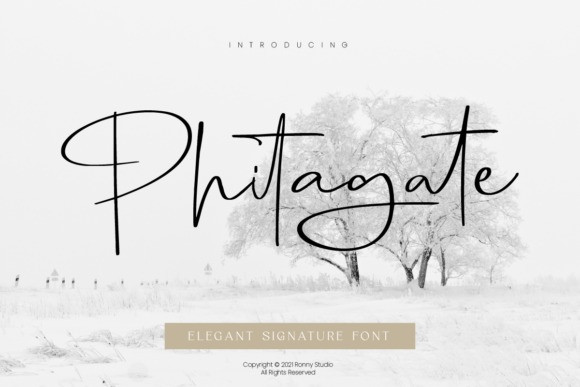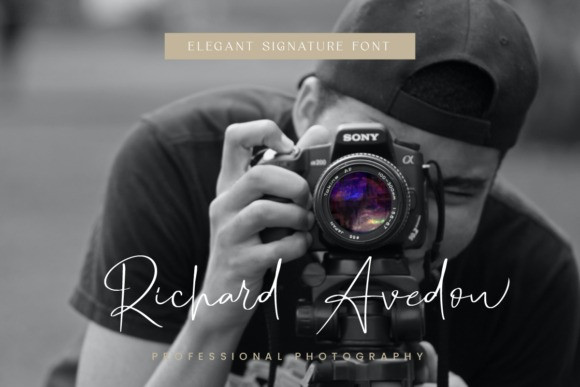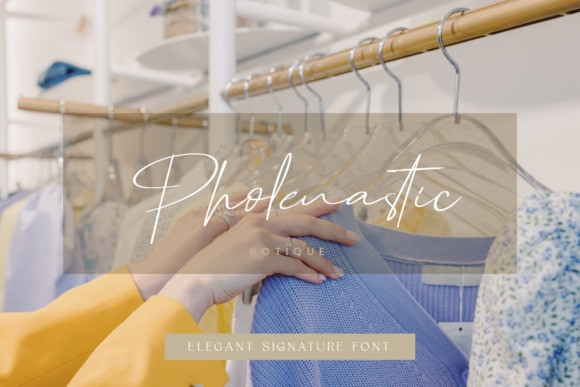
Phitagate Font
Phitagate is a signature script font with beautiful strokes. It is impressive and features a clean and elegant vibe, is professionally shaped, and as a result, it will easily match a variety of creations. This font is PUA encoded which means you can access all of the glyphs and swashes with ease!